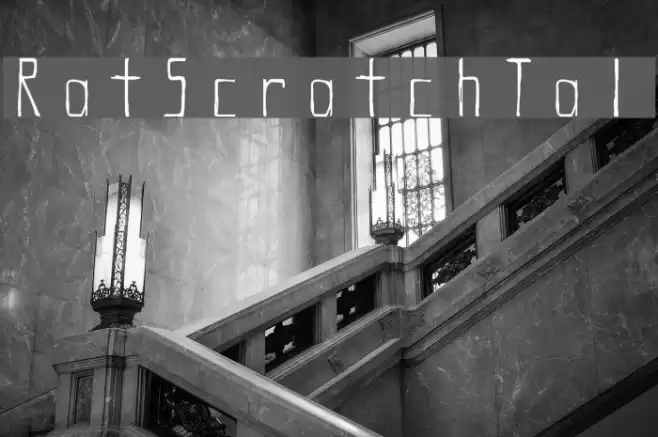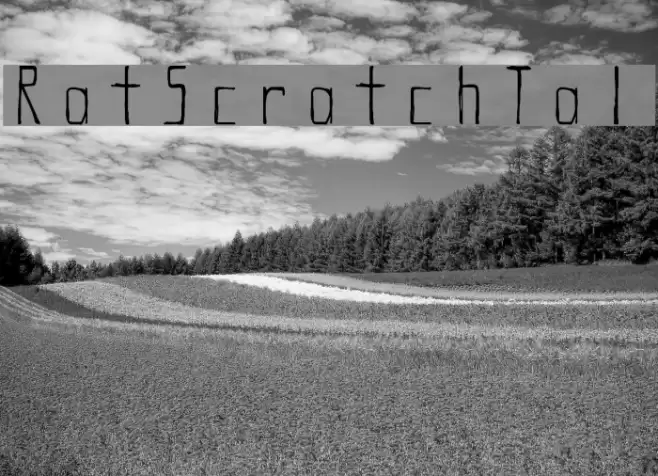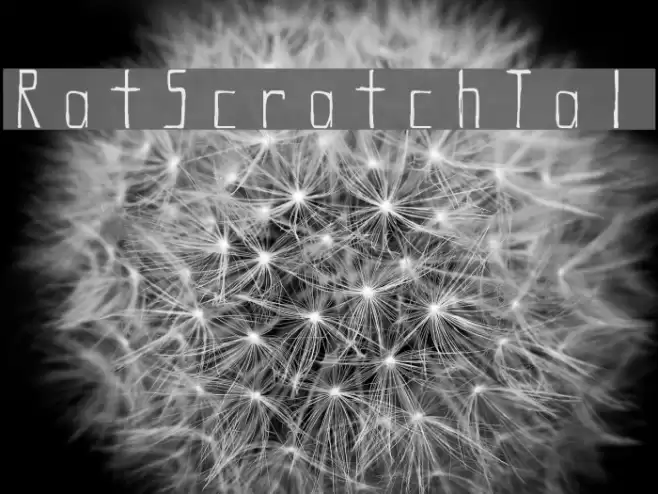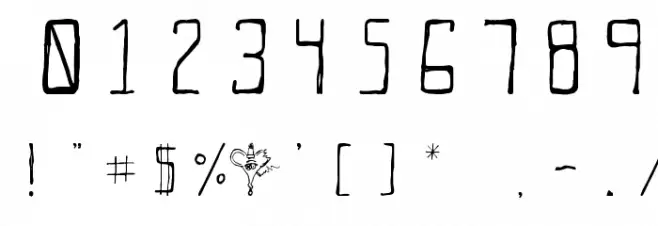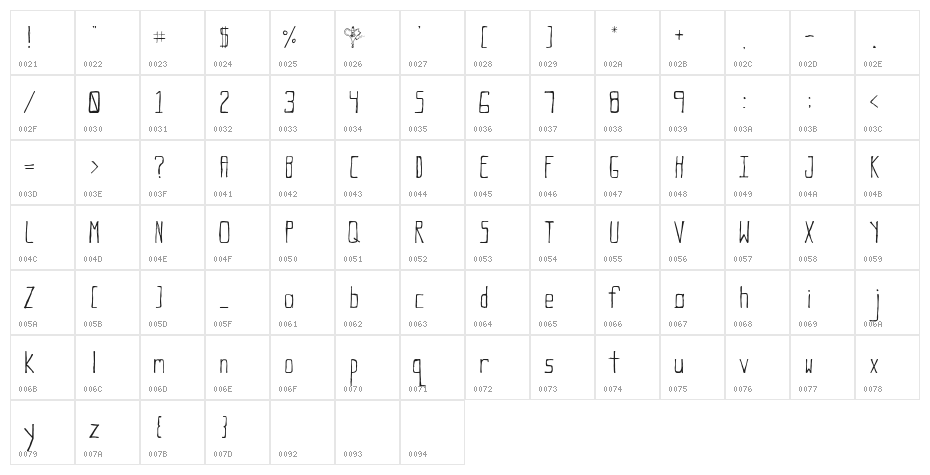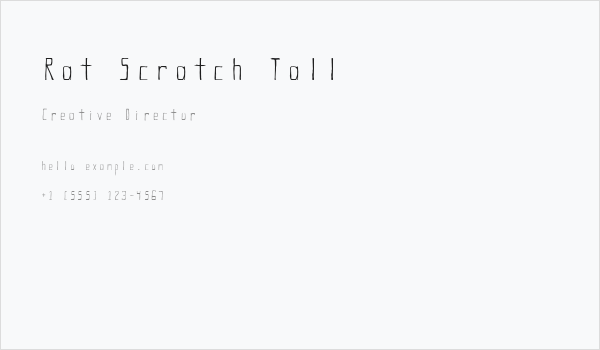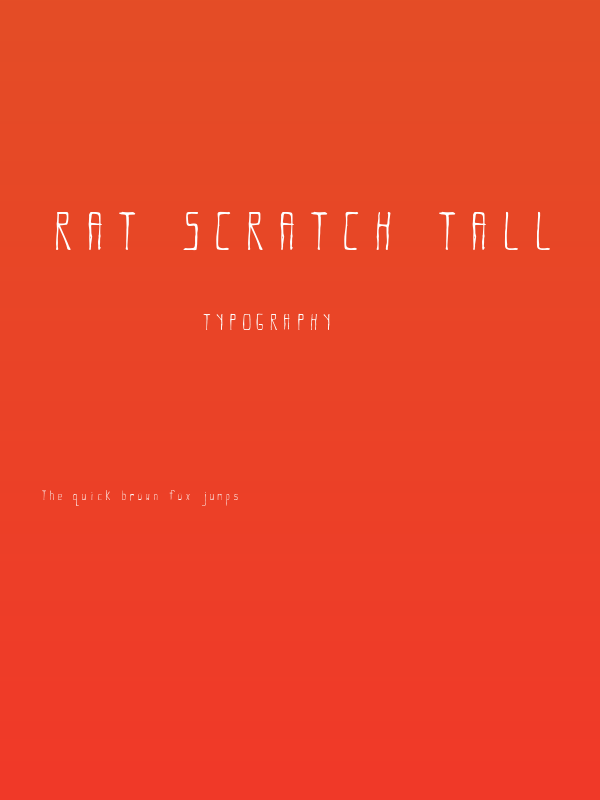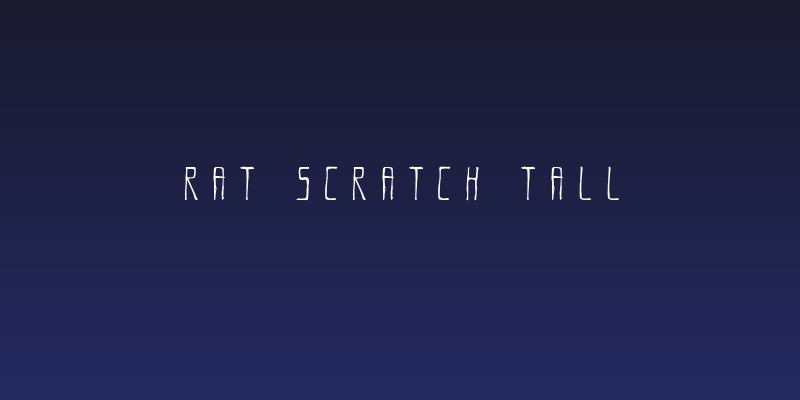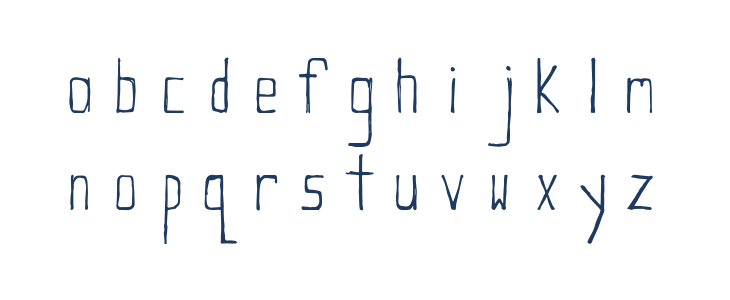
Rat Scratch Tall Font
Rat Scratch Tall Description
This font features a tall, narrow design with a hand-drawn, scratchy appearance. The irregular strokes and uneven lines give it a raw, organic feel, reminiscent of hastily scribbled notes or graffiti. The uppercase letters are elongated, while the lowercase letters maintain a consistent height, adding to the font's unique character. Numbers and special characters follow the same scratchy style, ensuring a cohesive look across all glyphs. This font's distinctive style makes it stand out, offering a playful yet edgy aesthetic that can add personality to any project.
A tall, narrow font with a hand-drawn, scratchy appearance from Handwritten fonts.